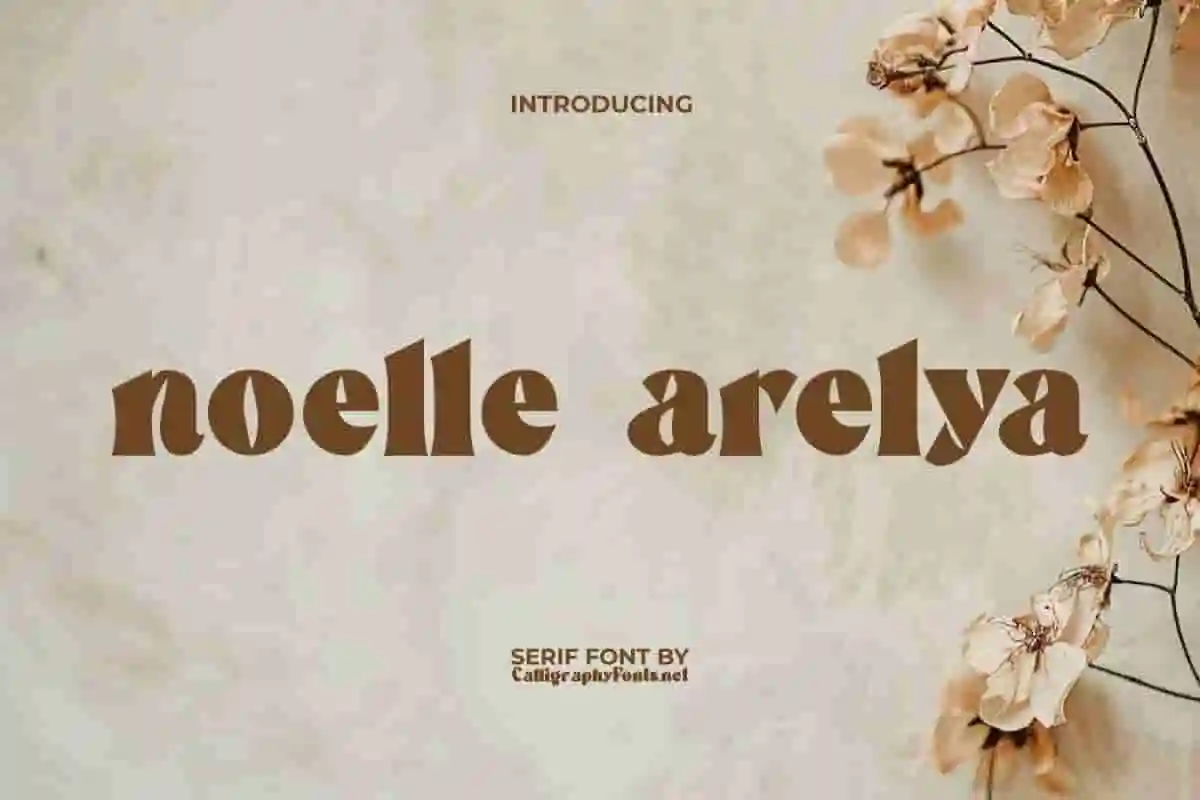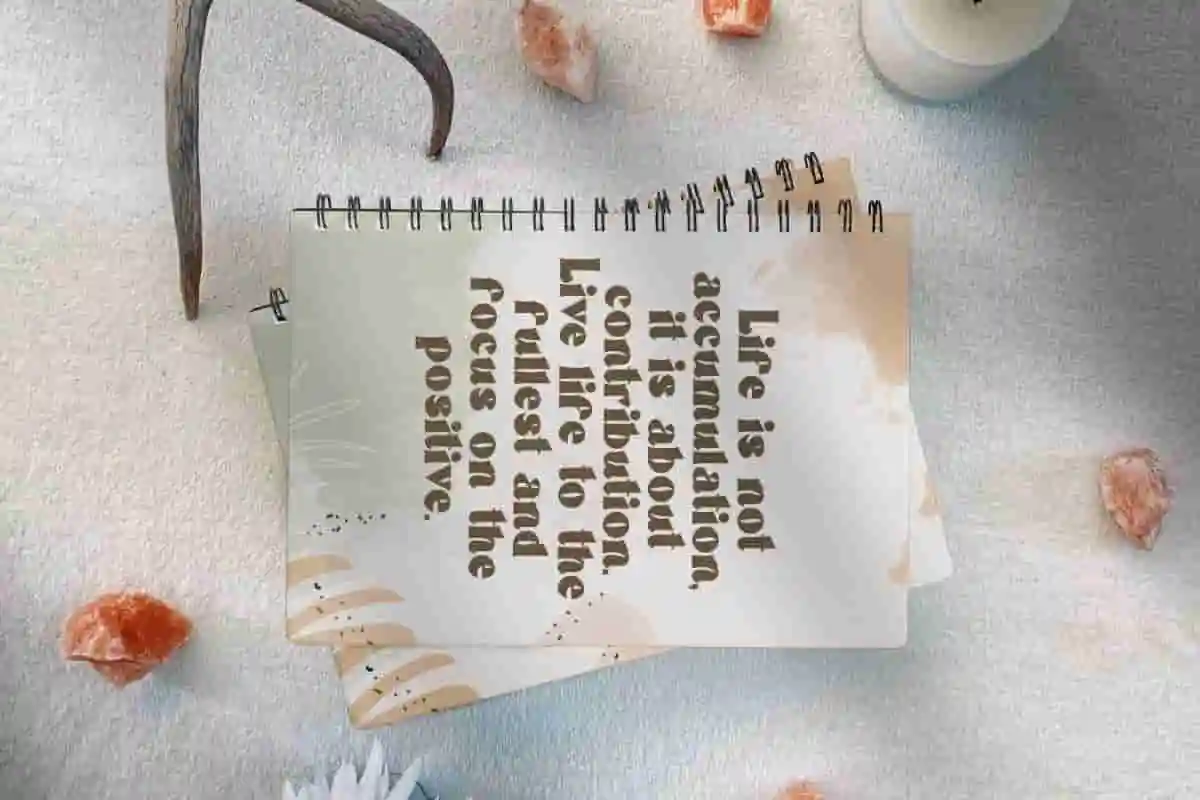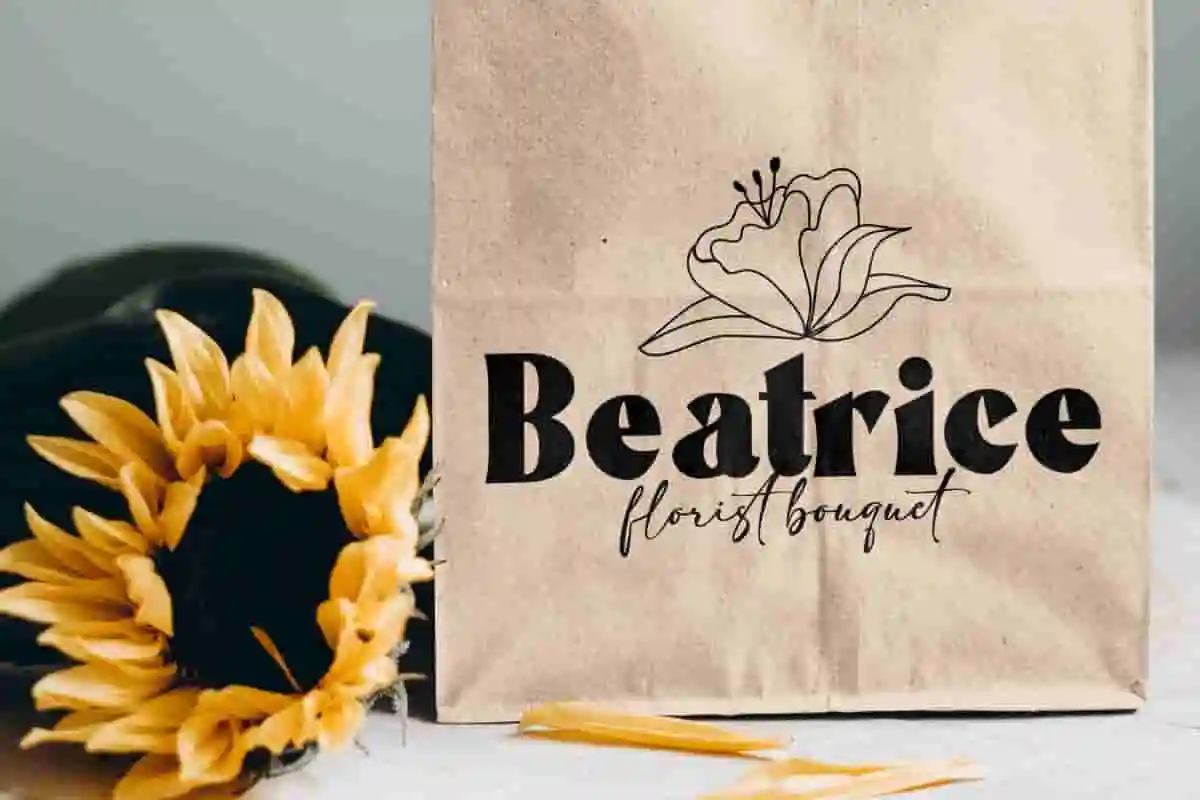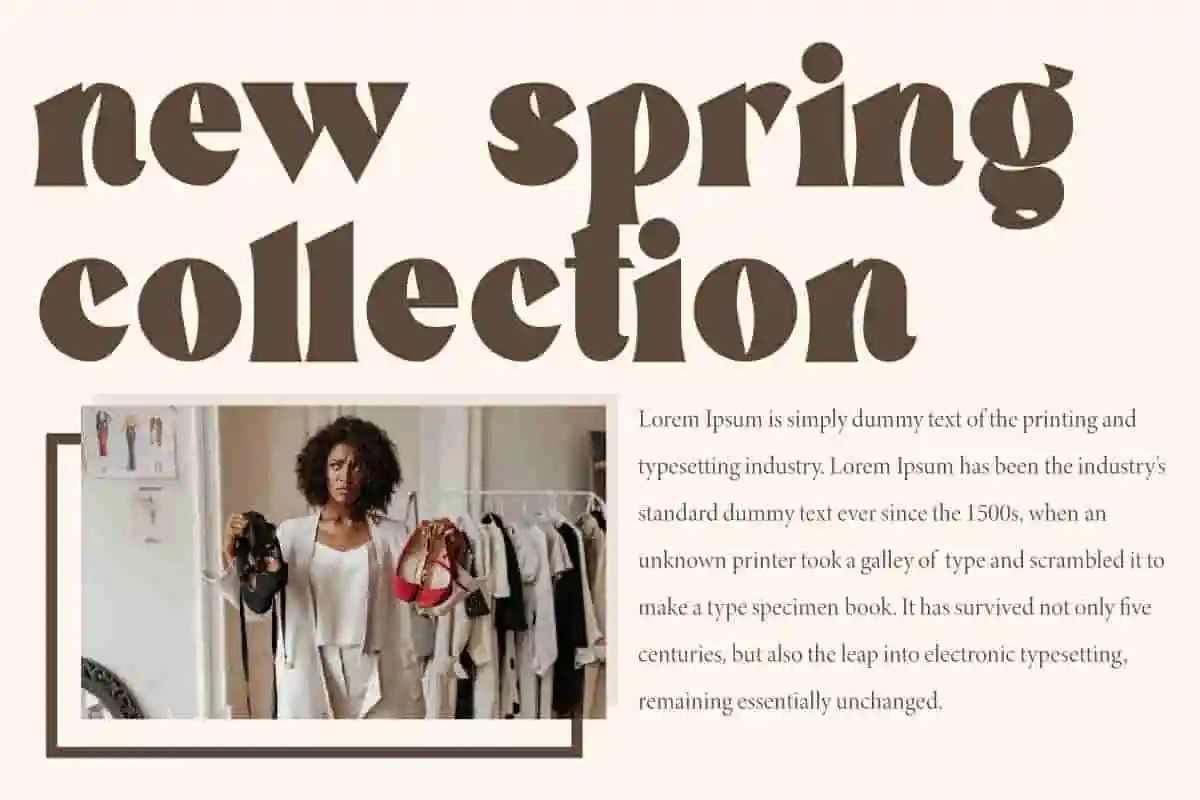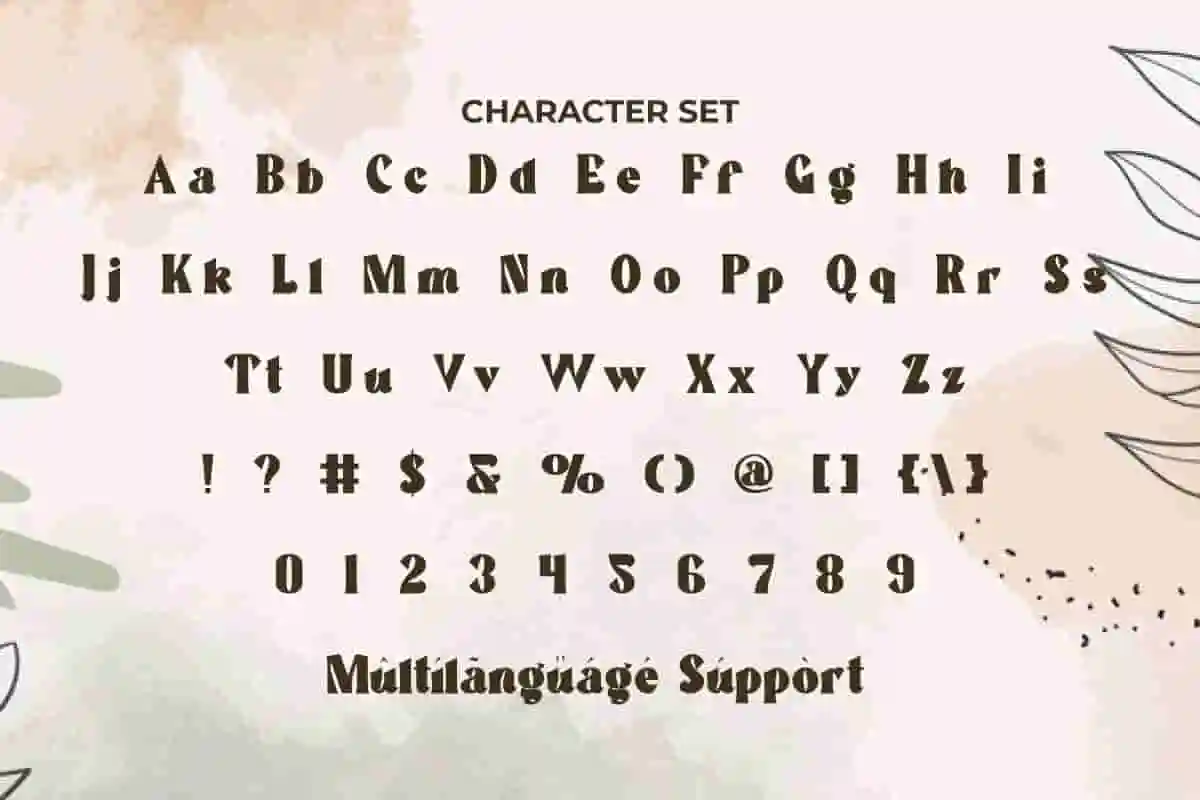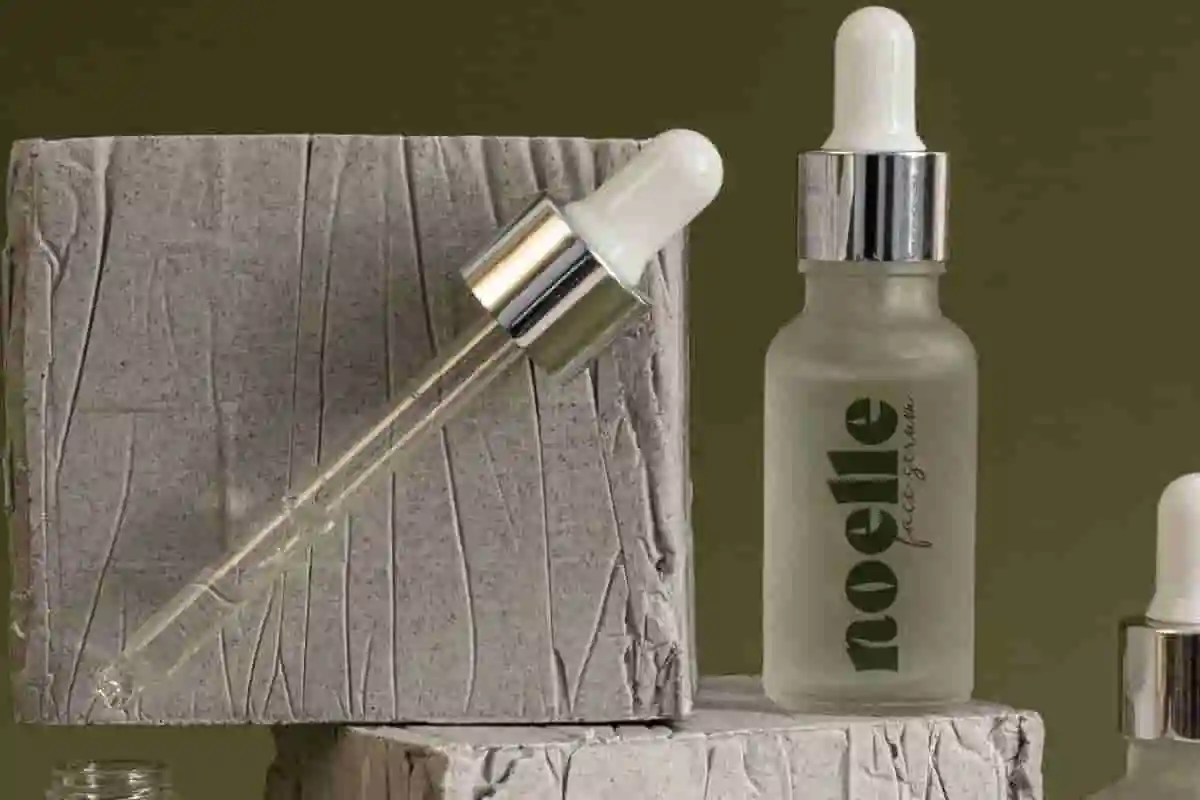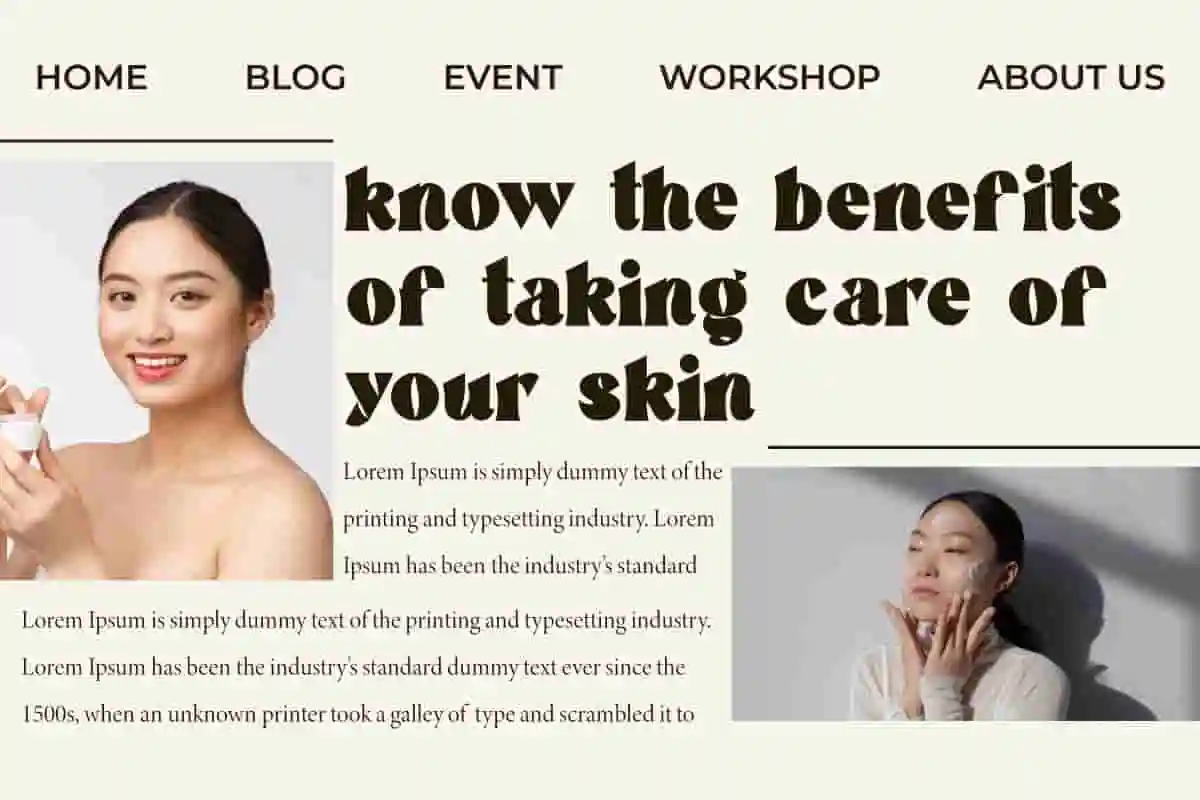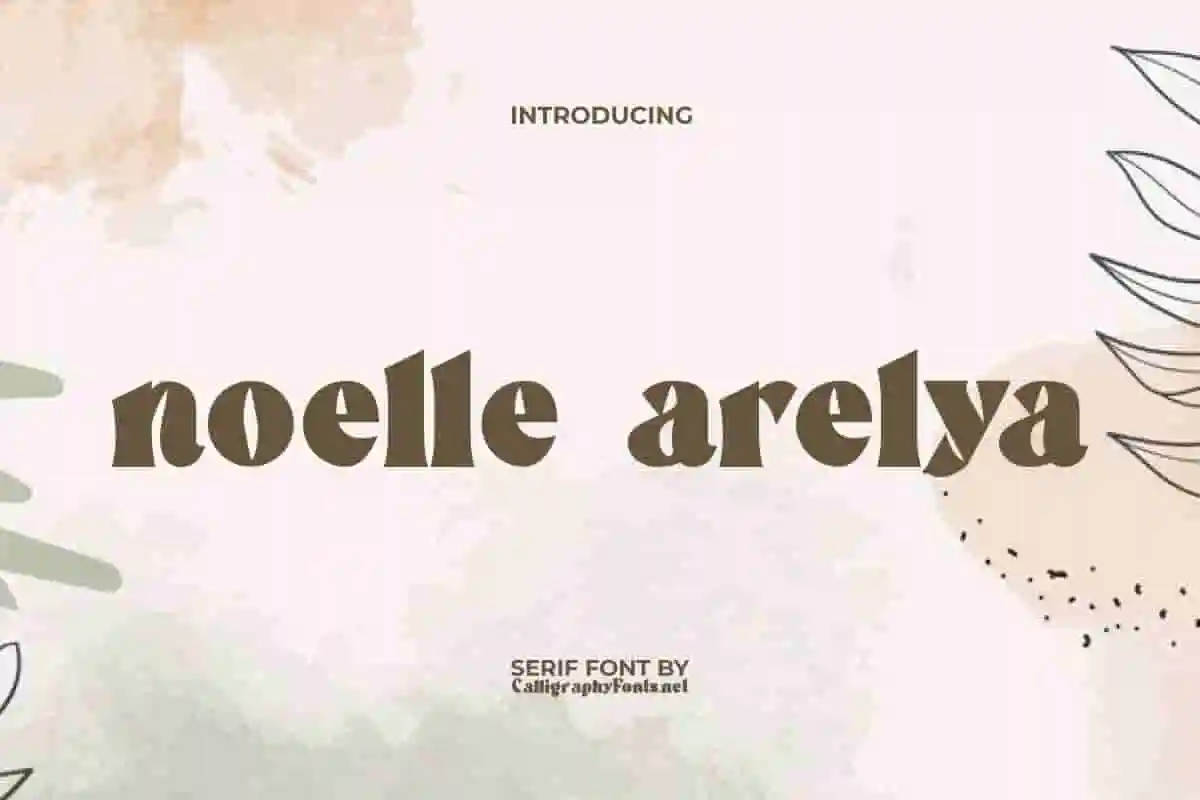
Noelle Arelya Font
Noelle Arelya Font is a modern retro serif font that feels beautiful and classy, featuring both masculine and feminine qualities. Suitable for apparel, florist, paper bag, quotes, title, web, etc.
Noelle Arelya Font is an elegant and refined bold serif display font, designed concisely in a classic style touch by presenting clean and minimalist letters giving a modern and stylish impression. This font is ideal for banner, blogs, brochure, covers, flyer, headers, headline, heading, labels, mockup, poster, printed materials, quotes, template, watermark, website, more.
Great design starts with great typography, and Noelle Arelya Display Font is here to help your projects shine with elegance and originality. This stylish display typeface combines bold character with graceful curves, making it the perfect choice for designers who want their work to look modern, professional, and unforgettable.
Crafted with attention to detail, Noelle Arelya brings a sleek, fashionable, and creative aesthetic that adapts beautifully to a wide range of projects. From branding and logos to posters, product packaging, editorial layouts, and social media graphics, this display font ensures your words always make an impact.
Typography is more than just text—it’s the voice of your brand. Noelle Arelya Display Font gives that voice strength, elegance, and clarity. Its stylish yet professional look makes it especially suited for fashion, lifestyle, luxury branding, and creative campaigns that demand attention.
Whether you’re designing a chic logo, crafting bold promotional material, or creating eye-catching social media content, Noelle Arelya is your go-to font for timeless, stylish typography.
Noelle Arelya Display Font is a serif font with a bold and impressive look. It is sure to create a professional font look and ensure that the message conveyed through the text remains easy to read and understand. This font is ideal for author, beauty clinic, clothing brand, cosmetologist, craft, fashion, florist, furniture, graphic design, photography, printing, publishing, skincare, spa salon, writer, more.